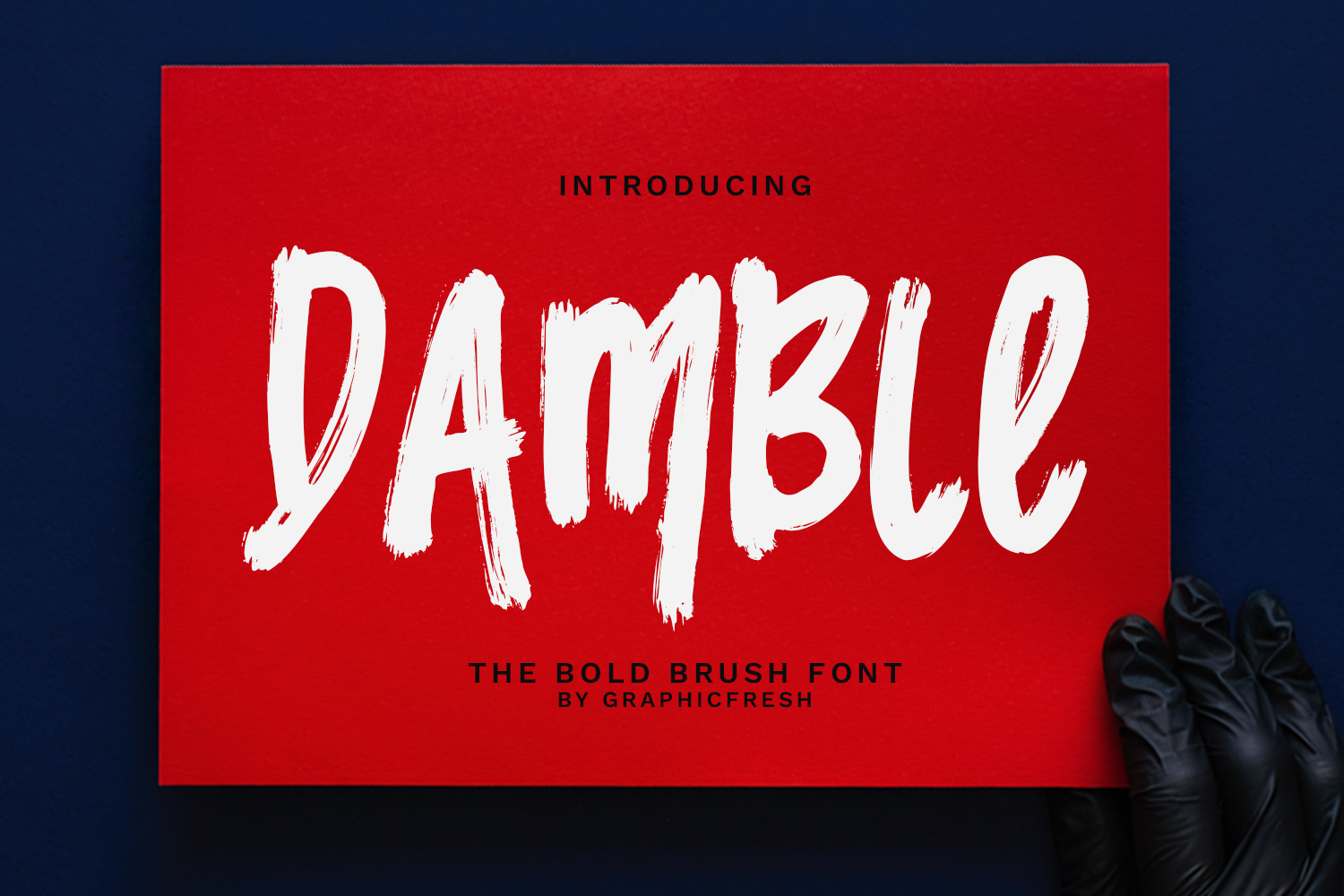
Damble - The Bold Brush Font
Damble is a bold brush font crafted with powerful strokes and expressive hand-painted texture. Designed to create strong visual impact, this font features thick brush forms and dynamic movement that bring energy and confidence to any design. Its rugged edges and bold structure deliver a striking presence while maintaining solid readability.